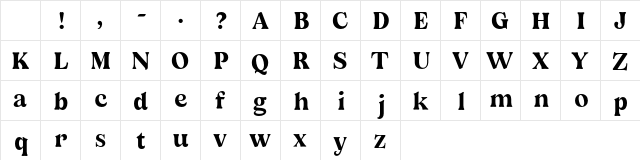
CF Oliviera Demo is a composed and adaptable typeface that performs quietly and consistently across a wide range of design contexts. Its bold stroke weight gives it real presence on the page.